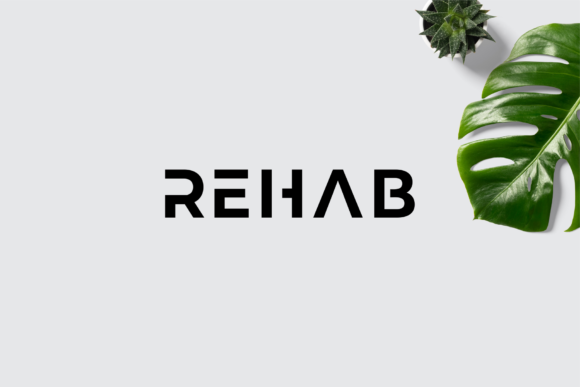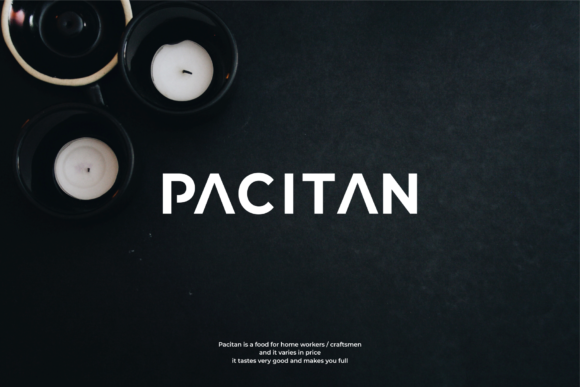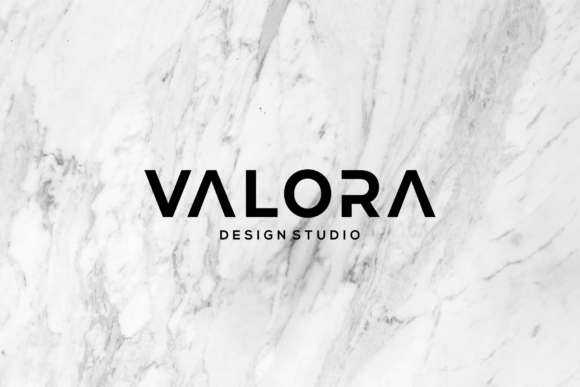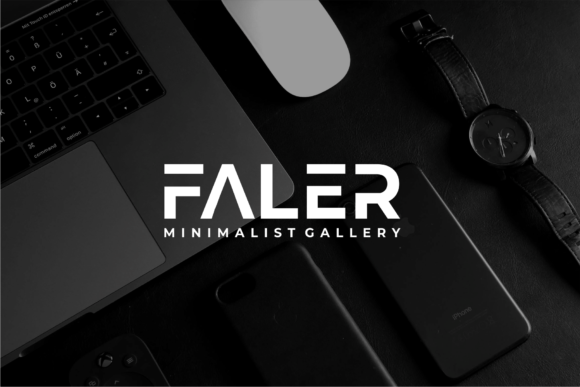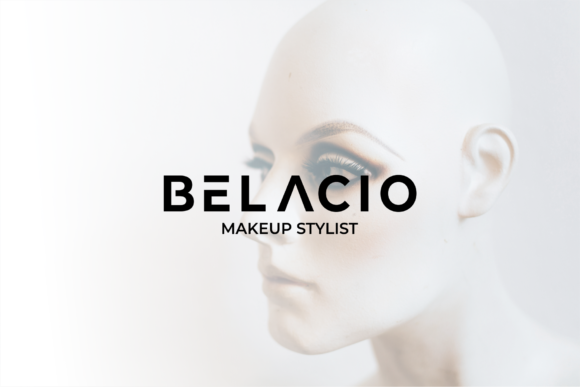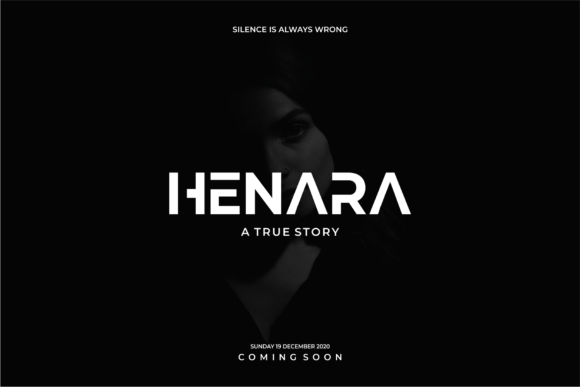
The Perfect Blend of Simplicity and Elegance: Besan Font
Have you ever stared at a blank canvas, waiting for the perfect font to spark your creativity? That’s exactly what happened to me last week, and I finally found it – the Besan Font. This stunning all-caps, minimalistic, and modern Sans Serif font is a game-changer for any design project.
Besan Font is specifically designed to create logos, wordmarks, titles, and taglines that exude a sense of sophistication and elegance. Its clean design makes it perfect for those who prefer a minimalist aesthetic. Whether you’re a seasoned designer or just starting out, Besan Font is a valuable addition to your toolkit, offering endless possibilities for creative expression.
With Besan Font, you can elevate your designs to the next level, adding a touch of modernity and style that’s sure to impress. In this article, we’ll dive deeper into the world of Besan Font, exploring its features, benefits, and uses, so you can unlock its full potential and take your designs to new heights.
Besan Font Key Features
- Font Family: Besan is a modern sans-serif font family designed for digital use, offering a unique blend of clean lines and subtle flair.
- Character Set: The Besan Font family includes a comprehensive character set, covering Latin, Cyrillic, and Greek alphabets, as well as a range of punctuation and symbol glyphs.
- Font Sizes and Resolutions: Besan Font is designed to be highly legible at various font sizes, from 8pt to 48pt, and is optimized for resolutions up to 300 DPI (dots per inch).
- Unique Characteristics: Besan Font features a distinctive x-height, carefully crafted to create a sense of balance and harmony, making it ideal for use in digital interfaces, signage, and corporate branding.
Besan Font Review
Overall, I’d say Besan Font is a decent choice for your next design project, but it has its limitations. Let’s dive into the good and the bad.
- Unique blend of traditional and modern elements, giving it a distinct character.
- OpenType features, like contextual alternates and swashes, add a touch of elegance to the font.
- Good legibility, making it suitable for body text and titles.
- Limited character set, which might be a concern for multilingual projects.
- Some letters might feel a bit too ornate or complicated for certain uses.
- Not as versatile as some other fonts in terms of font sizes and styles.
Besan Font is a solid choice for designers looking for a unique, elegant font. While it has its limitations, it’s perfect for projects where you want to add a touch of sophistication and whimsy. Just be aware of its potential drawbacks, and you’ll be fine.
Some common use cases for the Besan Font include:
- Food and restaurant branding
- Indian and Middle Eastern cultural designs
Alternatives to Besan Font
Playfair Display is a luxurious, high-end serif font that works well for headings and titles. It features elegant connections between letters and a classic feel. When to use: For high-end branding, luxury products, or elegant designs.
Comparison to Besan Font: While Besan Font has a unique, handwritten feel, Playfair Display is more formal and sophisticated. Playfair Display is ideal for designs that require a touch of elegance and sophistication, whereas Besan Font is better suited for more casual, creative projects.
Great Vibes is a beautiful, elegant script font that works well for titles and headings. It features a flowing, connected feel and a classic, sophisticated look. When to use: For wedding invitations, luxury branding, or elegant designs.